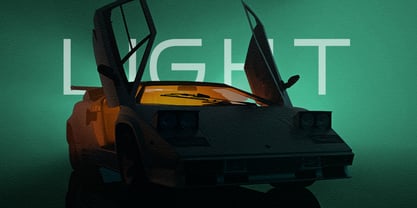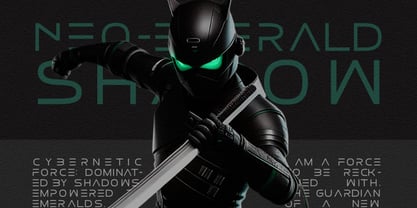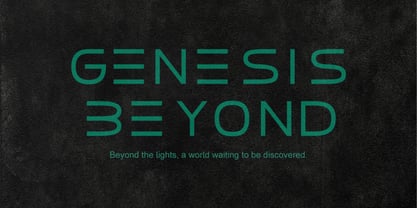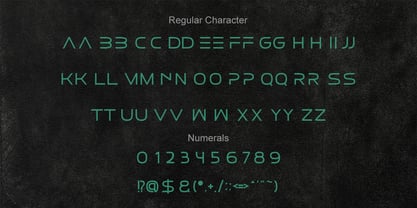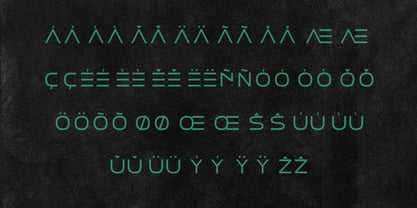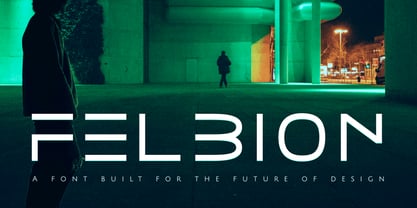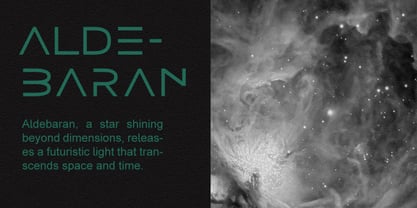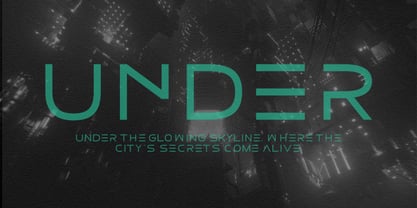
Felbion
by Vadova Std
The Felbion Font Family was designed by and published by Vadova Std. Felbion contains 1 styles. More about this family
Felbion is a modern futuristic display font designed to evoke a sense of innovation, speed, and minimalism. With its geometric precision, sharp modular lines, and forward-leaning structure, Felbion is perfect for digital interfaces, sci-fi visuals, gaming titles, and high-tech branding. It includes uppercase characters, numerals, symbols, and multilingual support, making it adaptable across global design needs. Felbion is ideal for creators working on high-impact futuristic concepts, including sci-fi movie posters, game UI, tech startup branding, electronic music covers, and digital product launches. Its geometric and sci-fi vibe makes it especially effective for attracting tech-savvy audiences and forward-thinking brands.